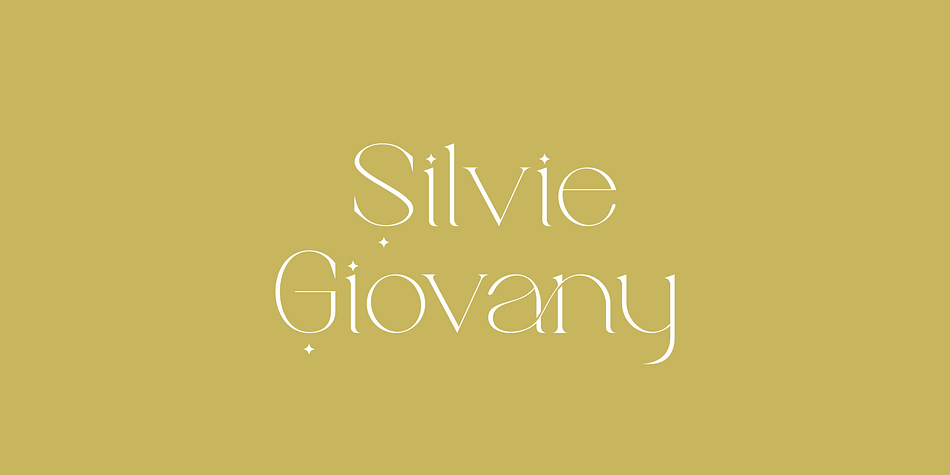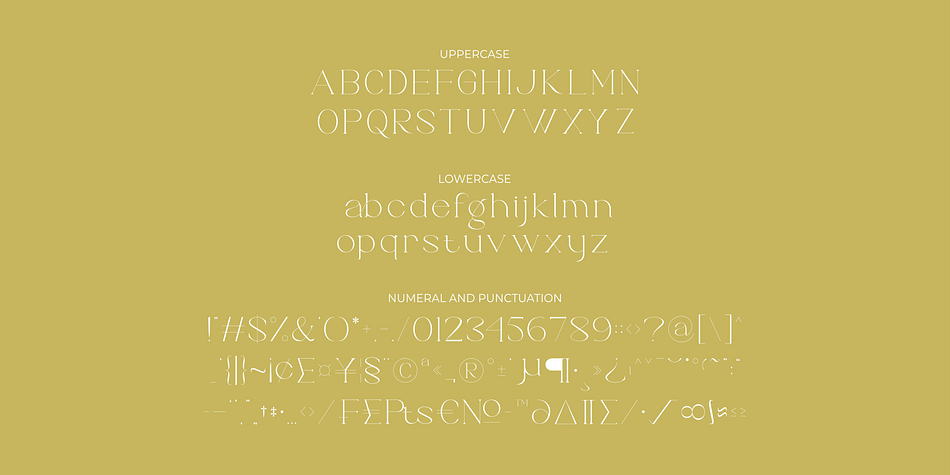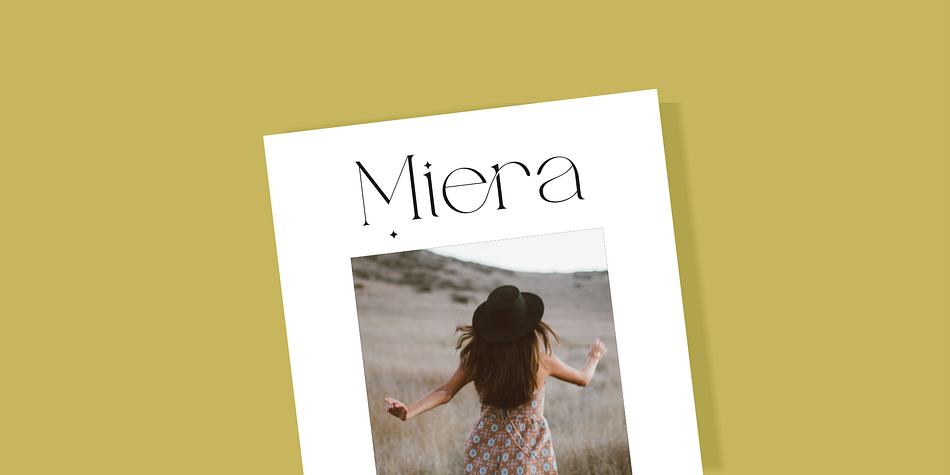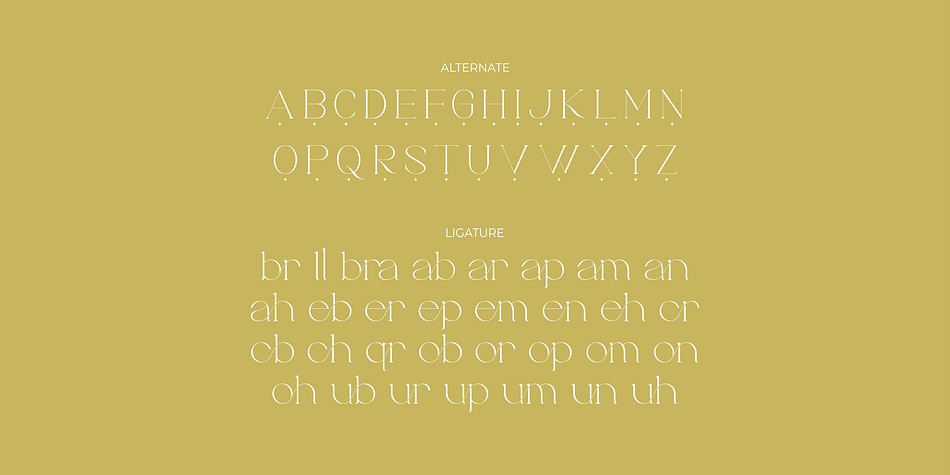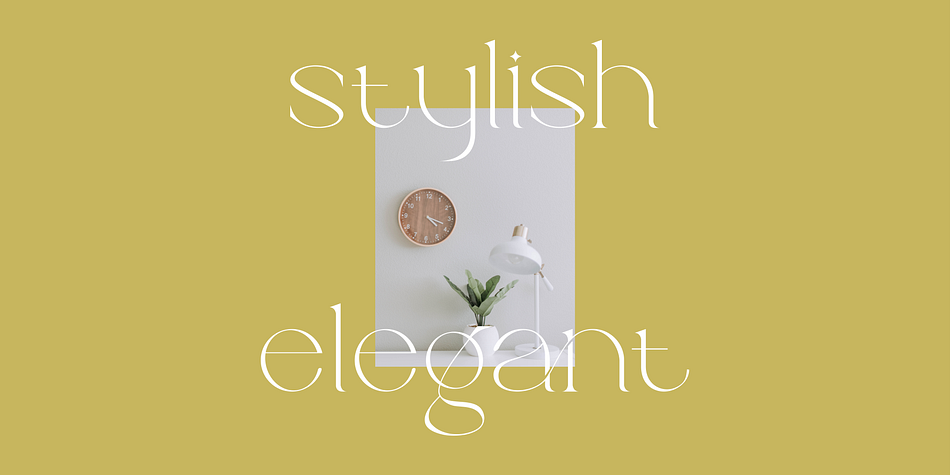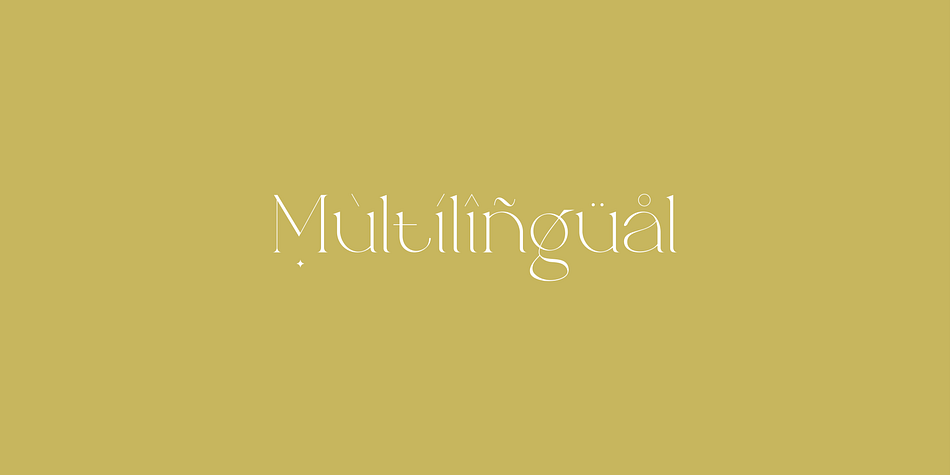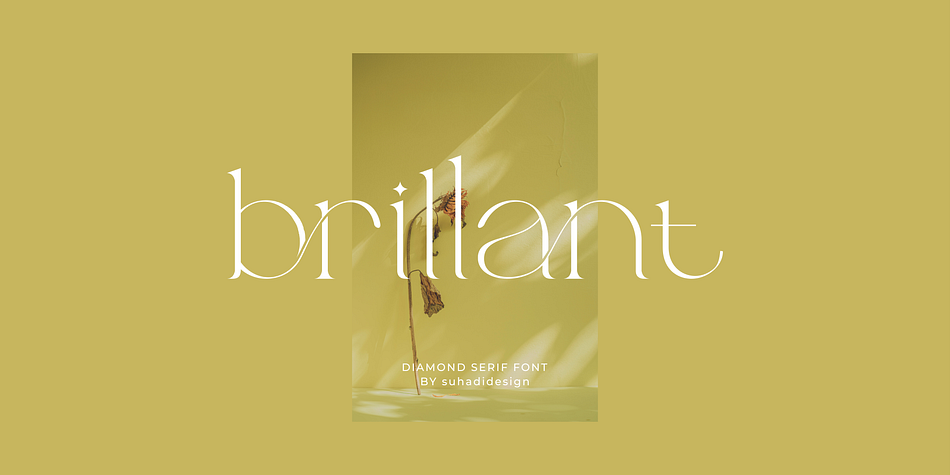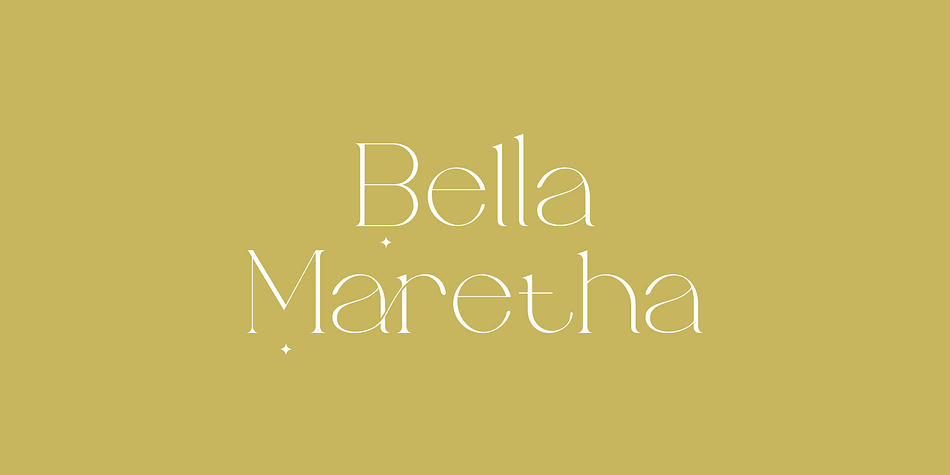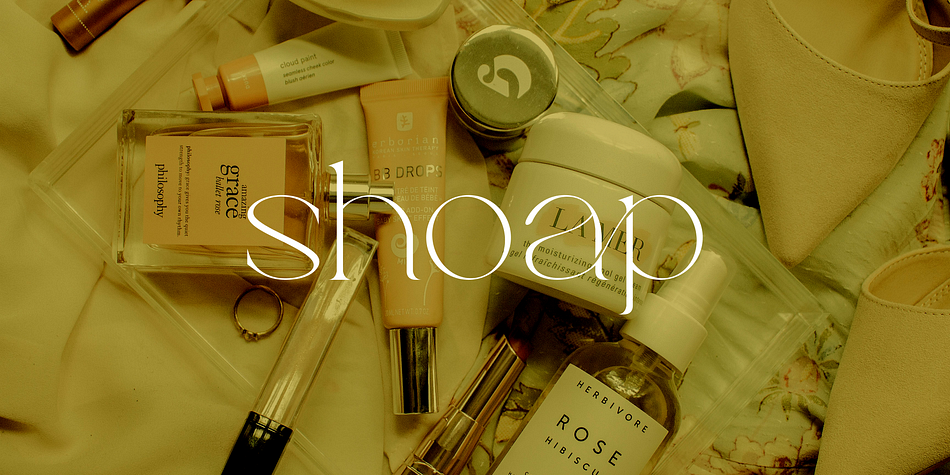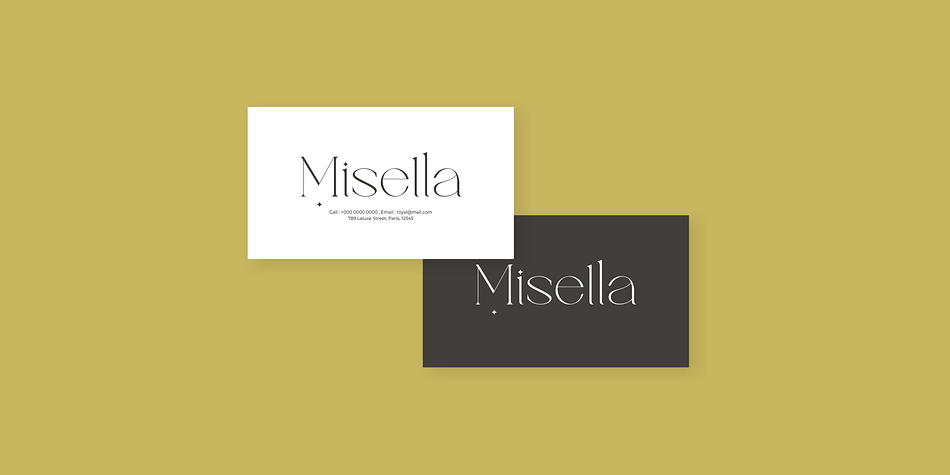
Brillant
Brillant is a display serif font family published by suhadidesign.
Brillant - Stylish Ligature Serif
Hi ladies and gentlemen! The latest stylish modern font has arrived which is a font that many ladies and gentlemen are looking at. Namely the Brillant font. The Brillant font is a stylish and modern serif font. with a stylish modern style, it has become a market favorite. We keep this font looking elegant, classy, ​​stylish. Brillant Font is a great choice for beauty, magazines, design, books, publications, brand names, business cards, social media, classy design, newspaper, branding and other projects. Brillant Font is here to improve the quality of your designs.
Feature:
• Uppercase • Lowercase • Alternates • Ligatures • Multilingual Support • Numerical • Punctuation